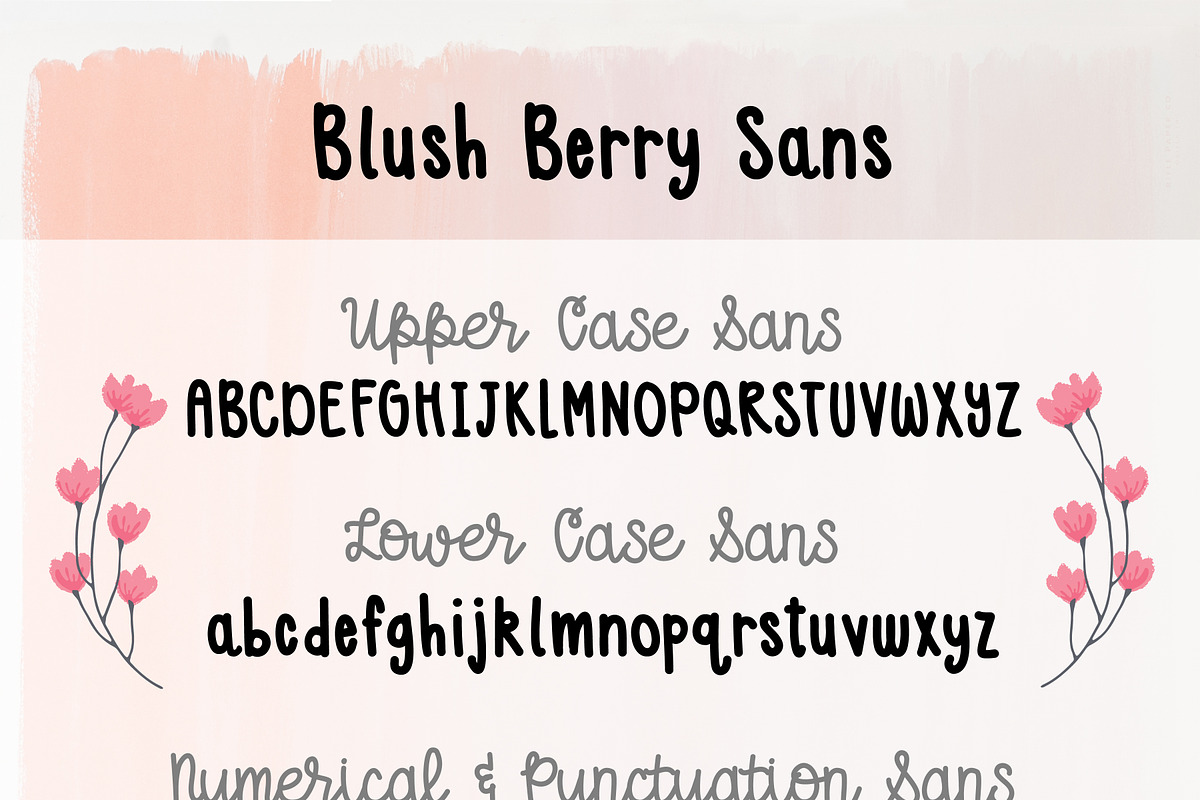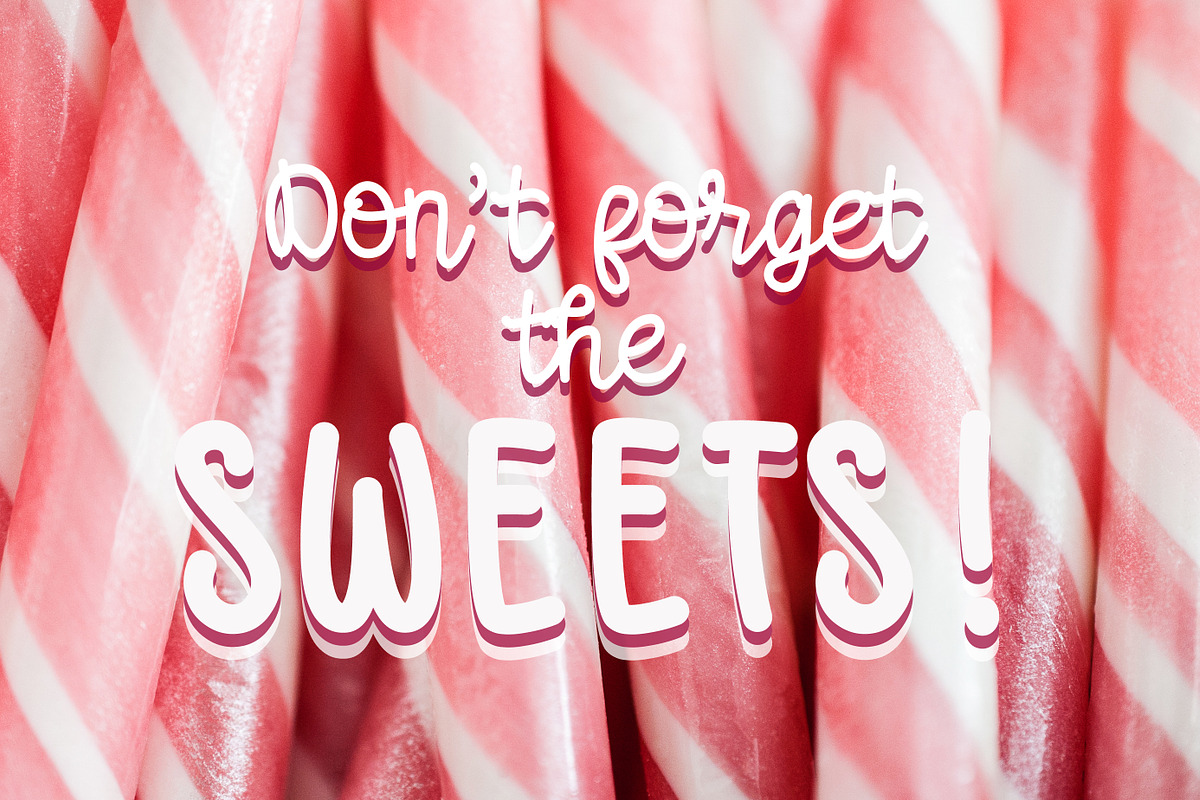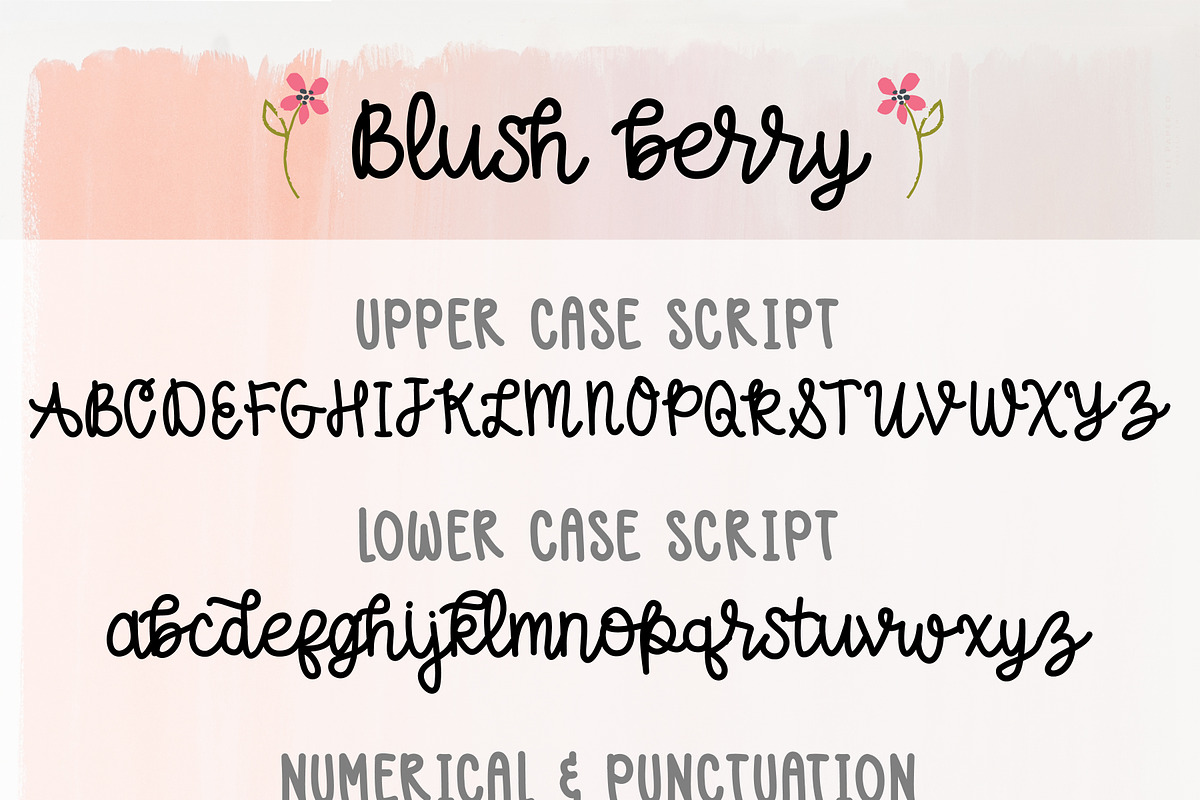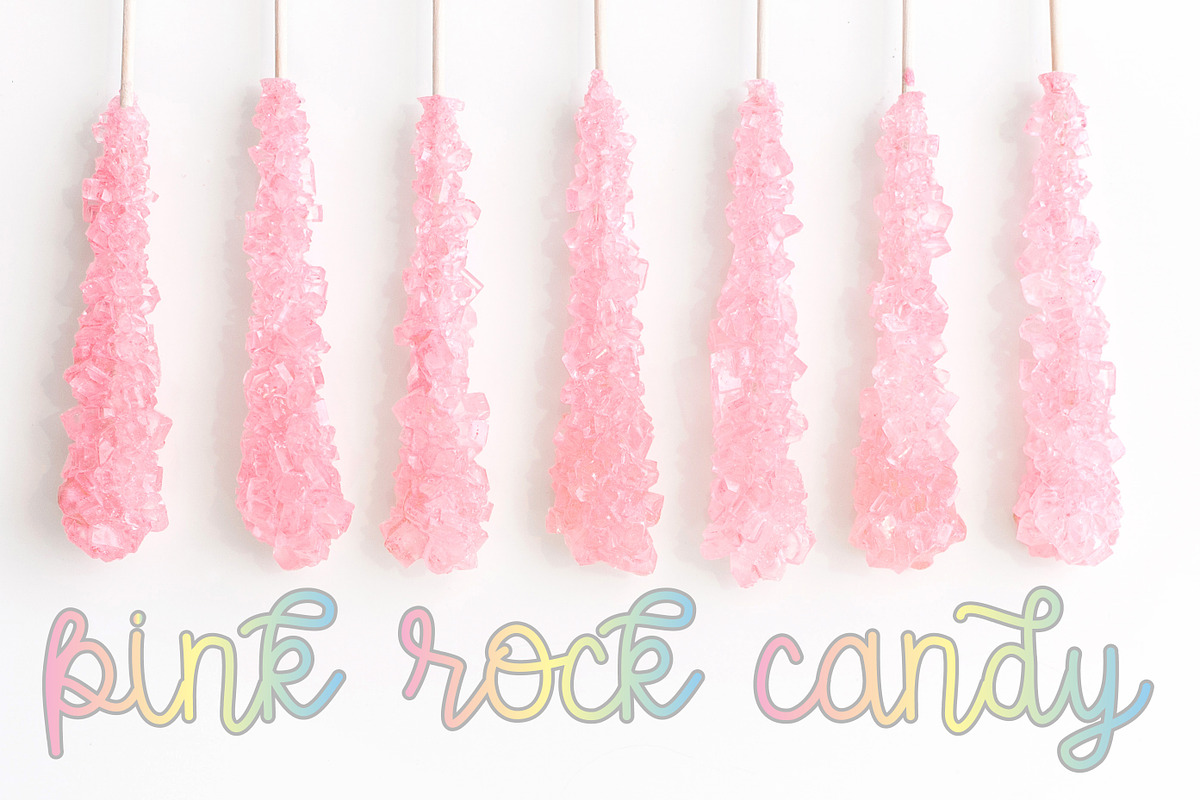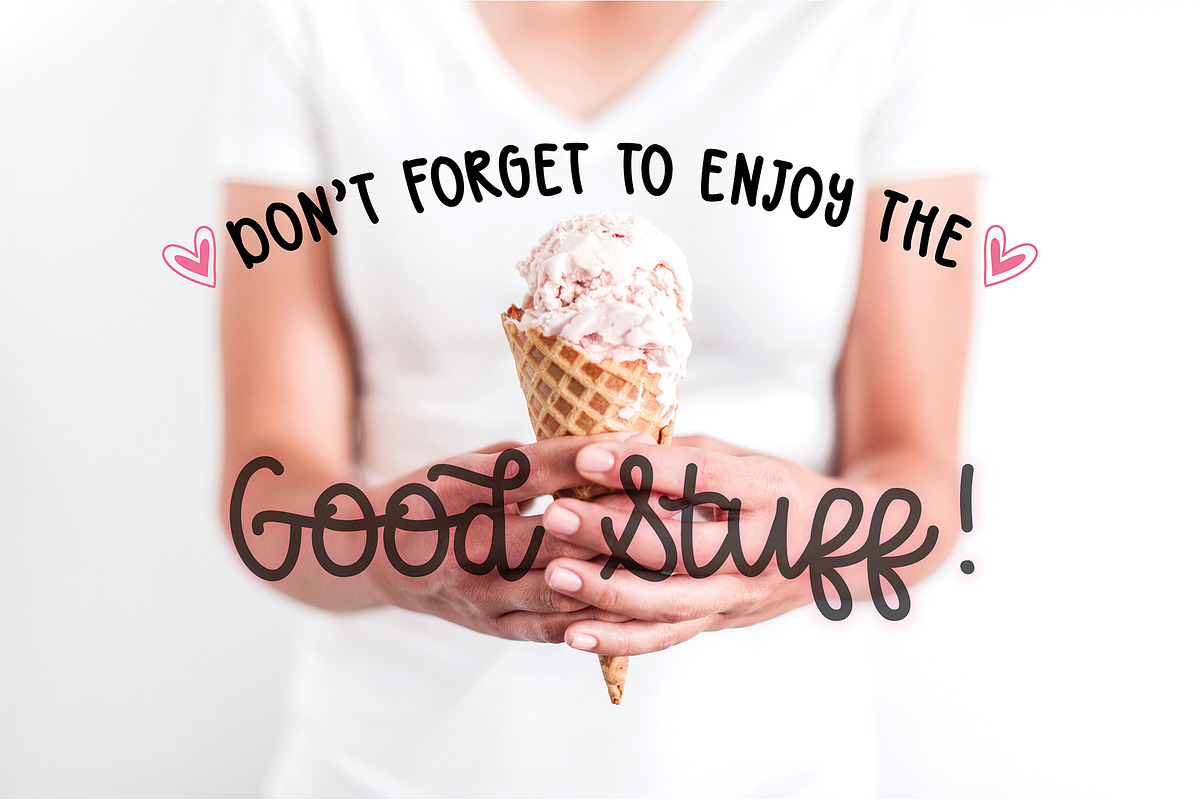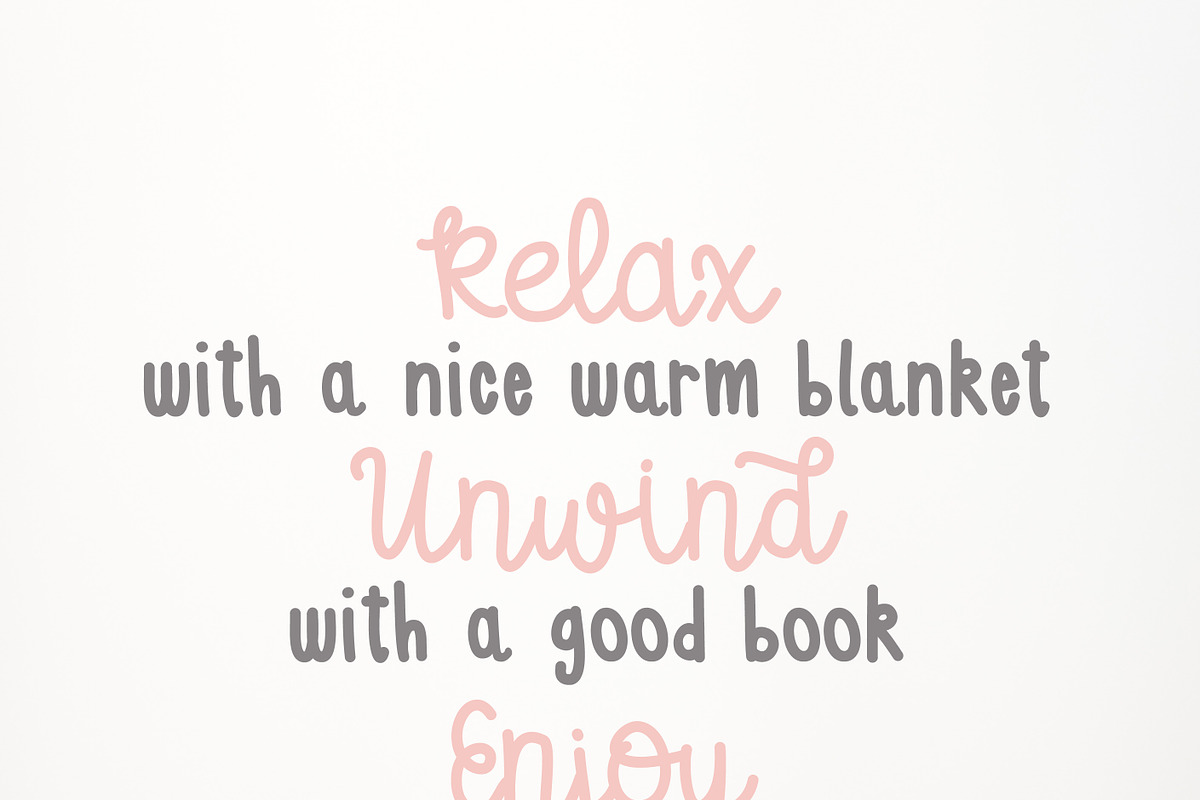
Blush Berry Font Duo - Hand Lettered
Introducing Blush Berry! A deliciously fun font duo - Hand lettered Script and Sans Serif fonts. Have some fun playing around with these fonts, they look amazing in both lower case and upper case formats. Nice thick and smooth strokes make this font easy to craft with! They cut with ease on any craft cutting machine. They also work well in programs like Word, Illustrator, Photoshop, InkScape and many more. Available in TTF format.
Both fonts (Blush Berry Script & Blush Berry Sans) come with Uppercase, Lowercase, Numeral, Punctuation & Latin Accents.